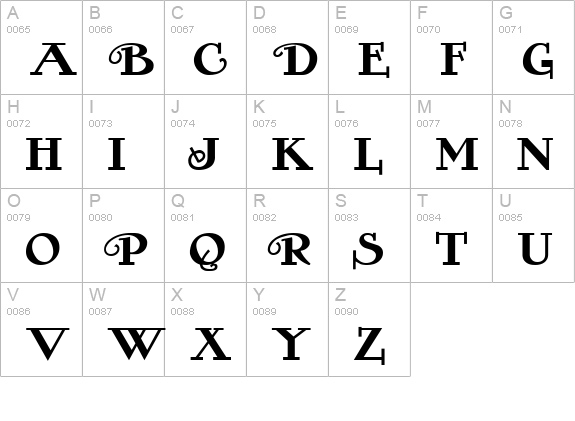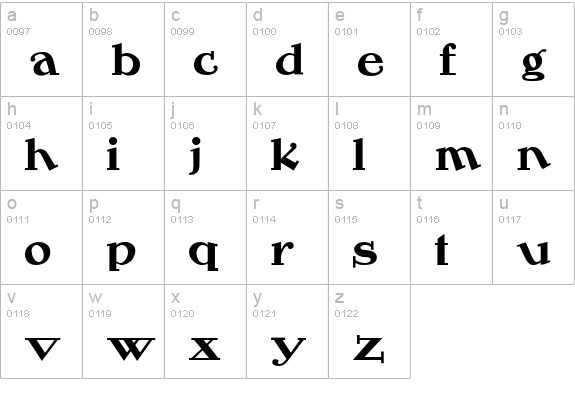
Rogers2 Font Details
Rogers2 is a modern and stylish font that exudes sophistication and elegance. With its clean lines and sleek curves, this font is perfect for a wide range of design projects, from branding to editorial design. The versatility of Rogers2 makes it a go-to choice for designers looking to make a bold statement with their typography. What sets Rogers2 apart is not only its aesthetic appeal but also its accessibility. This font is available for free download at FontsMarket.com, allowing designers to access this high-quality typeface without any cost. Whether you're working on a personal project or a commercial endeavor, Rogers2 is a valuable addition to your font library. With its timeless design and easy availability, Rogers2 is a must-have font for any designer looking to elevate their work with a touch of sophistication and style. Download it today and see the difference it can make in your designs!